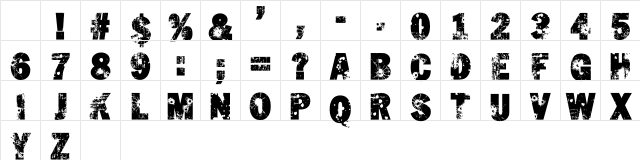
Complete Shut'Em Down Regular glyph index. Displaying only characters natively supported by Shut'Em Down Regular font.
Shut'Em Down is a composed and adaptable typeface that performs quietly and consistently across a wide range of design contexts.